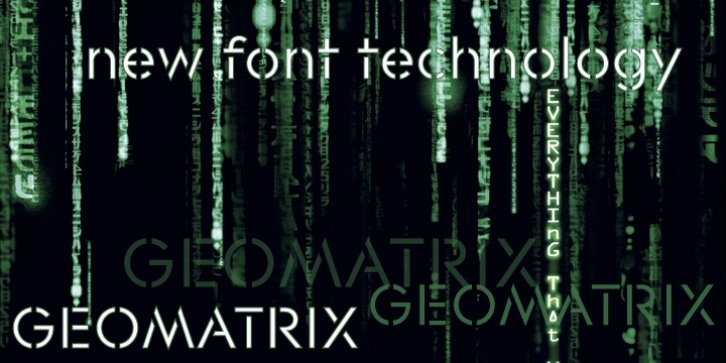
The font Geomatrix is an original design by Alex Kaczun. It is a dynamic stencil interpretation based on his extremely successful Contax Pro family of geometric sans typefaces. Geomatrix is a contemporary stencil typeface based on generous proportions and clean, crisp lines.The stencil treatment is balanced visually with the stem weight of the font which creates a uniformity and harmony within the design. Geomatrix makes for easy reading and is ideal for long lines of copy. It exudes a strong sense of sophistication for a true stencil design.
However, this is no ordinary stencil typeface. That’s putting it mildly. Geomatrix is a font on STEROIDS! This unique OpenType font incorporates hundreds of CAPITAL alternate letter forms and glyph substitutions, automatically and on the fly, within InDesign and other Open Type applications. To turn this feature on, just typeset ALL CAPS and go into InDesign’s OpenType>Stylistic Sets and select Set 1 from the menu. Turn character kerning from Metrics to Optical, adjust tracking to minus 20-30, and start typing to create some visually interesting letter substitutions and unique word combinations. Geomatrix was specifically designed to take advantage of the OpenType format, allowing the Graphic Designer a unique tool to achieve the desired degree of possible visual typographic effects.
And finally, the character sets in Geomatrix have been expanded to include old-style figures and all Eastern European accented glyphs. Strap in and hold on to your seats. A revolution in new font technologies has begun!
HOW TO ACCESS “ALTERNATE” STYLISTIC “SET 1” LETTER FORMS:
Geomatrix is a unique OpenType font which incorporates hundreds of CAPITAL alternate letter forms and glyph substitutions, automatically and on the fly, within InDesign and other OpenType applications.
To turn this feature on, just typeset ALL CAPS and go into InDesign'd5s OpenType>Stylistic Sets and select “Set 1” from the menu. Turn character kerning from Metrics to Optical, adjust tracking to minus 20-30, and start typing to create some visually interesting letter substitutions and unique word combinations.
This feature “stylistic set 1” can be toggled “on” or “off” anytime, allowing you to go back and forth, or select only the letters that you want to change.
Geomatrix was specifically designed to take advantage of the OpenType format, allowing the Graphic Designer a unique tool to achieve the desired degree of possible visual typographic effects.
And finally, the character sets in Geomatrix have been expanded to include old-style figures and all Eastern European accented glyphs. Strap in and hold on to your seats. A revolution in new font technologies has begun!